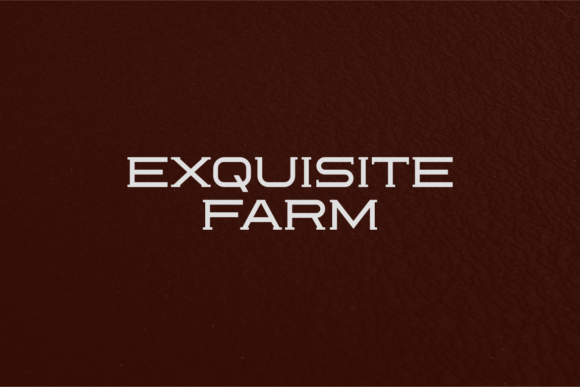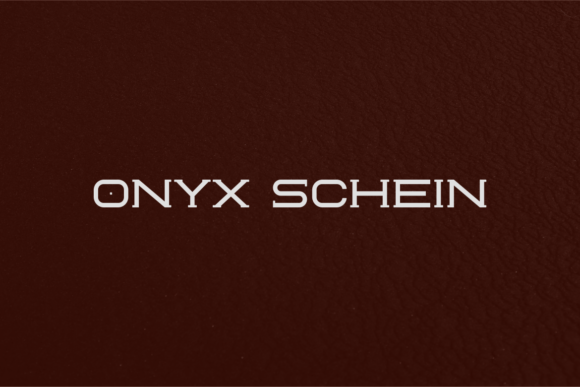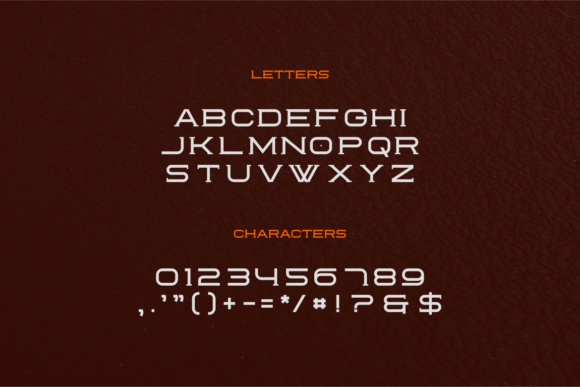
Introduction to Reoctions Font
Reoctions is an incredibly cool display font.
With a modern yet whimsical style, this font has the potential to bring each of your creative ideas to the highest level .
Key Features of Reoctions Font
Why Choose Reoctions Font?